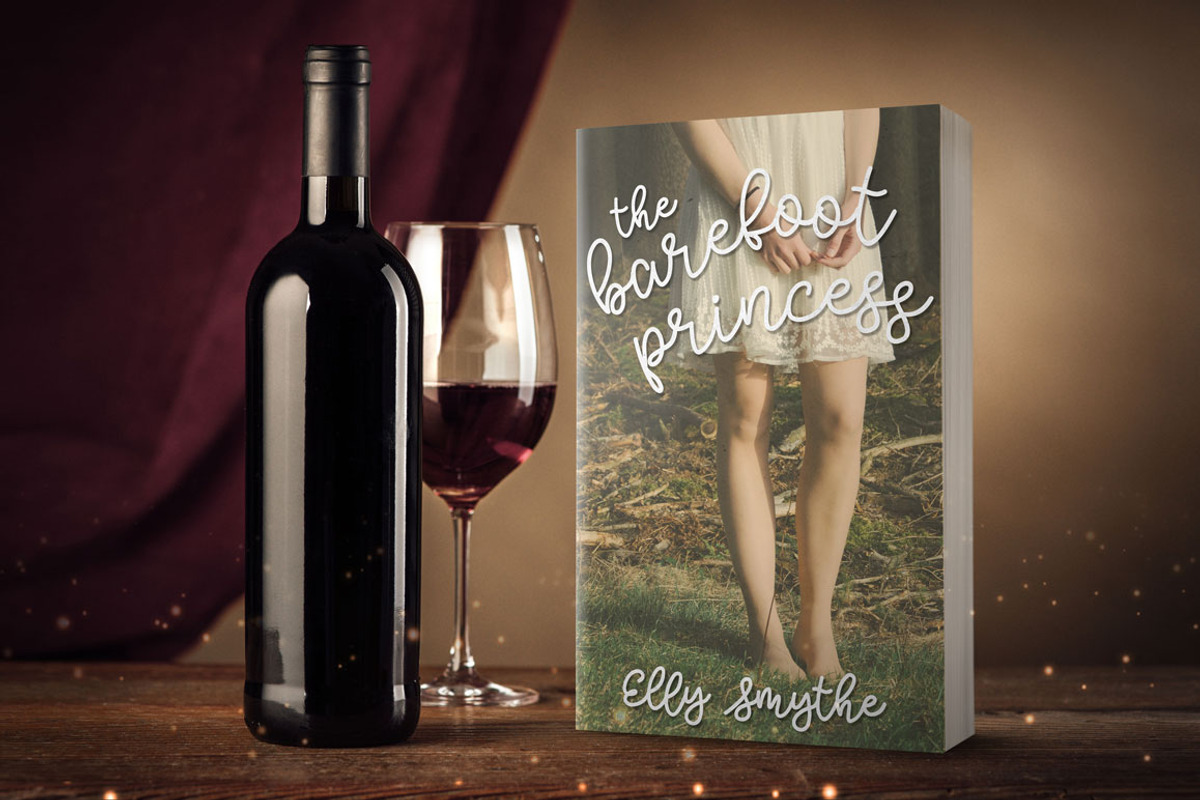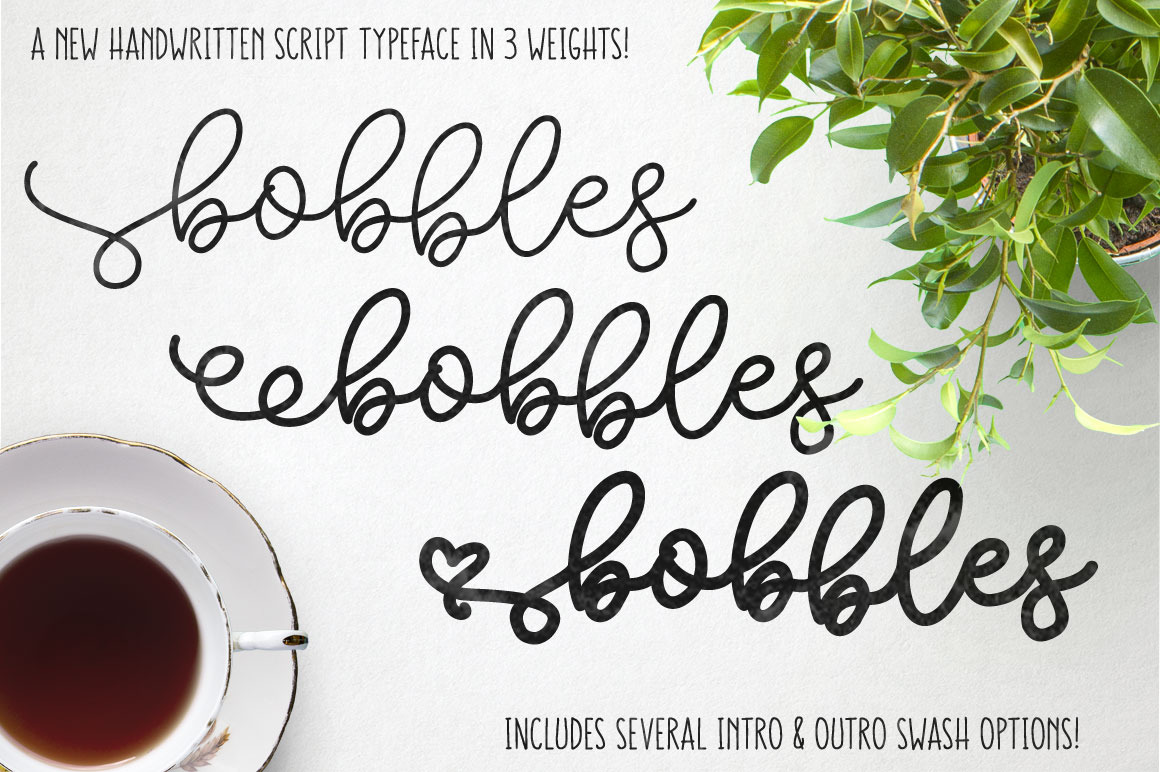
Bobbles: Script Font in 3 Weights
Introducing Bobbles, a handwritten script font family with three weights!
Bobbles is a monoweight script font handy for 1,001 projects. Each of the three weights (Light, Regular, and Bold) includes almost 200 accented and special characters, as well as 15 double-lowercase ligatures and eight intro and outro swashes that are easy to insert -- just type one of the eight bracket keys on your keyboard!
I'm also including my Trawll double-uppercase font in this bundle -- it pairs beautifully with Bobbles, and also contains the eight bracket characters that the Bobbles are lacking (to make way for those swashes).
- The Trawll sans-serif font
- A-Z, a-z, 0-9, and full puncutation (except for brackets) in each weight
- 190 accented and special characters for multiple language support
- 15 double-lowercase letter ligatures in each Bobbles weight (bb, cc, dd, ee, ff, gg, ll, mm, nn, oo, pp, rr, ss, tt, zz)
- 3 intro swashes and 5 outro swashes mapped to the bracket keys
Special note: The Bobbles fonts do not have the following eight characters: ( ) [ ] { } 〈〉. They've been replaced with swash characters.